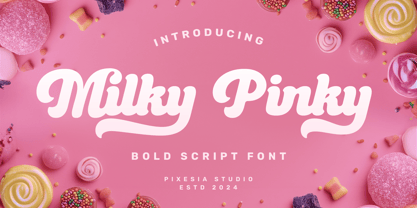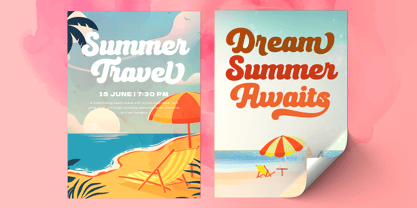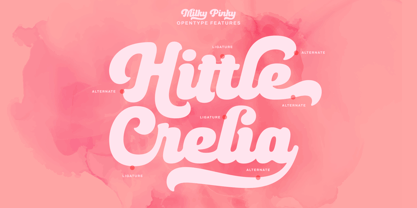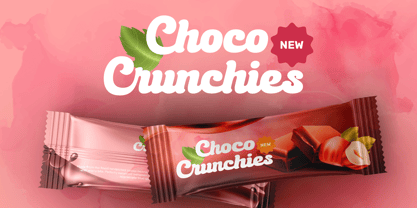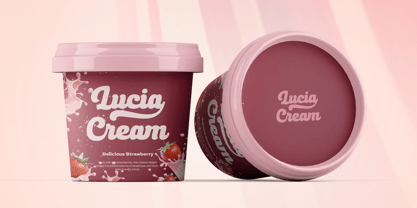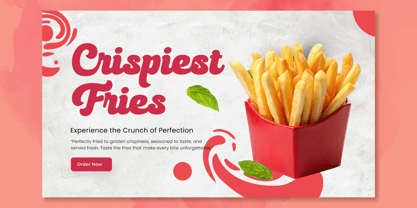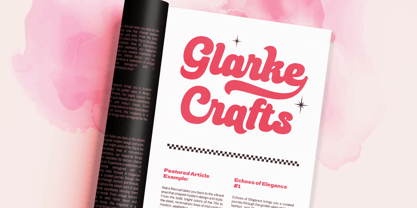
Milky Pinky
by Pixesia Studio
The Milky Pinky Font Family was designed by Abul Almaududi and published by Pixesia Studio. Milky Pinky contains 1 styles.
Introducing Milky Pinky - Bold Script Font
Milky Pinky is a fun and cheerful script font inspired by the joy of sweets and playful moments. It brings to mind happy times with friends, summer treats, and carefree laughter.
Milky Pinky is perfectly suited for invitations, greeting cards, dessert menus, children’s party themes, branding, social media, stickers, packaging for sweets, event flyers, wall art, playful advertisements, merchandise, invitations, fun blog headers, seasonal promotions and any design projects aiming to evoke joy and playfulness.
FEATURES
- Stylistic Alternates
- Ligatures
- Uppercase and Lowercase letters
- Numbering and Punctuations
Designers: Abul Almaududi
Publisher: Pixesia Studio
Foundry: Pixesia Studio